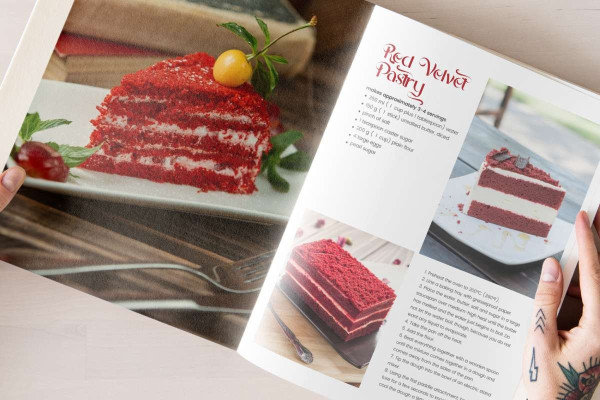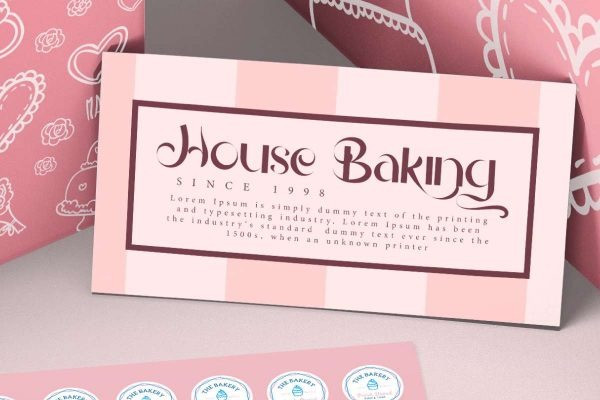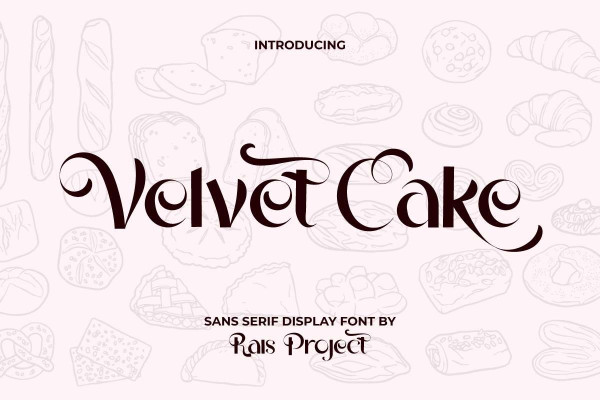
Velvet Cake Font
Velvet Cake Font is a lovely sans serif display font with romantic styles that which will make your designs eye-catching! Such as brand logo, business card, custom design, cover, invitation, label, menu, poster, product packaging, quote, signage, web page, and more!
Velvet Cake Font includes a full set of Uppercase and Lowercase Letters, Numerals, and large range of punctuation. This beautiful font also contain Alternate characters that will be suitable for various industries, such as accessories, bakery & pastry, beauty product, café, fashion, photography, printing, publishing, restaurant, wedding or event organizer, etc.